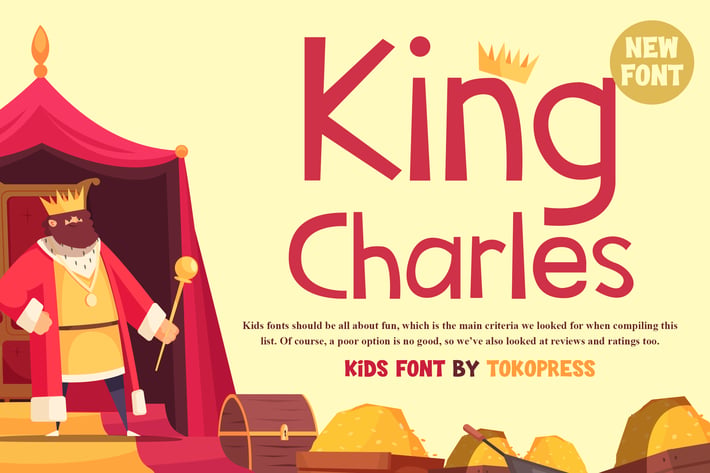
King Charles - Kids Font
King Charles is a playful cartoon-style kids typeface crafted for joyful branding and creative storytelling. Designed with rounded terminals, wide curves, and soft proportions, this font radiates friendly charm and effortless legibility. Its bouncy rhythm and expressive flow make it ideal for children’s products, toys, educational posters, birthday invitations, and family-centered branding. This font brings a light-hearted tone that instantly communicates warmth, creativity, and youthful excitement.
From kindergarten banners and children’s apps to toy packaging and book covers, King Charles helps designers craft messages that are welcoming, fun, and imaginative. Its personality speaks directly to young audiences and parents alike, creating an emotional bond through visual language. If you’re targeting the early childhood market or launching a kid-focused campaign, this typeface will enhance your design’s impact with clarity and cuteness.
Key Features :
Rounded, playful letterforms for a friendly vibe
Great readability for kids and parents alike
Ideal for posters, toys, apps, and storybooks
Works beautifully in colorful, fun layouts